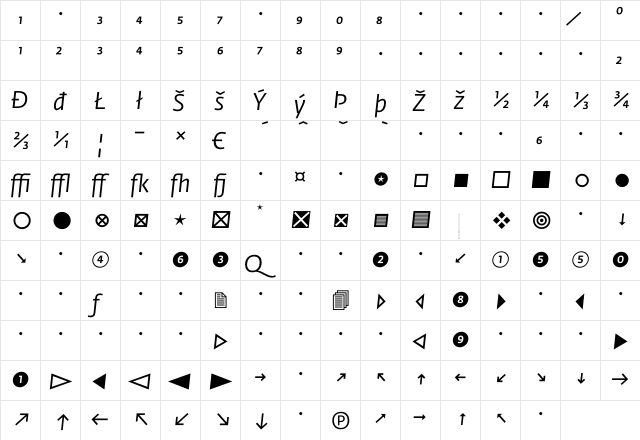
Fedra Sans Book Italic Expert Font Preview
Fedra Sans Book Italic Expert
Fedra Sans Book Italic Expert Font Details
| Style | Book Italic Expert |
Design Context for Fedra Sans Typeface
Fedra Sans offers clean, dependable letterforms without strong stylistic allegiance, making it a practical choice for designers who need flexibility. Its italic angle brings a sense of urgency and motion to the letterforms.
Pro Tip: Use Fedra Sans for emphasis, pull quotes, and subheadings where its slanted energy can add rhythm to the layout.